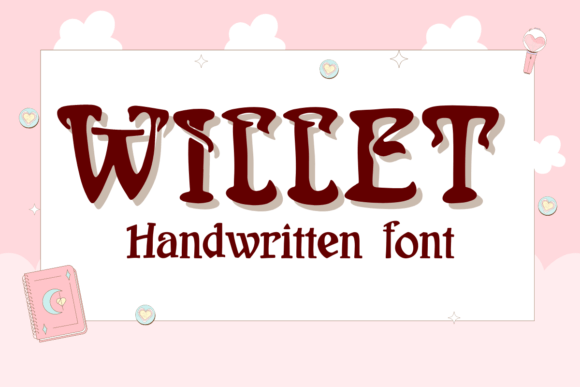
Step into the world of Willet Font, a captivating display font that exudes fun and coolness with every stroke. This handwritten masterpiece is your gateway to expressing your personality and style, whether you're scribbling notes, pouring your heart out in a diary, or crafting heartfelt greeting cards.
With its playful and carefree spirit, Willet Font effortlessly adds a touch of whimsy to any project. Its unique characters dance across the page, evoking a sense of childlike wonder and creativity. Unleash your inner artist and let your imagination run wild as you explore the endless possibilities that await.
But Willet Font's talents extend far beyond personal expression. This versatile font is a chameleon of creativity, adapting seamlessly to a multitude of design endeavors. Envision your words taking center stage on banners, captivating audiences with their unique charm. Let Willet Font elevate your content, making it shine brighter than ever before.
Picture your designs taking flight, soaring to new heights with Willet Font as their fearless companion. T-shirts, mugs, cards, stationery, and social media posts—no challenge is too great for this font's boundless versatility. Its playful spirit knows no bounds, igniting a spark of joy wherever it goes.
So, whether you're a seasoned designer or just starting your creative journey, Willet Font is your trusted guide, ready to transform your visions into reality. Embrace the magic of this font and watch your creations come alive with personality and charm. Make a statement, leave a lasting impression, and let Willet Font ignite the fire within your designs.